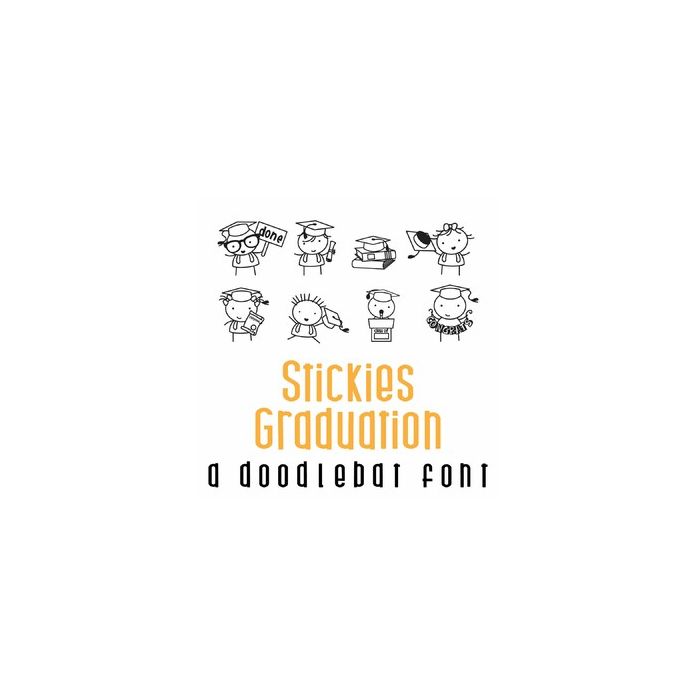
Stickies are back and ready for graduation. Get 26 graduating stickies in this doodlebat. Perfect for cards, crafts, gifts, planner stickers, parties, scrap book pages and more!